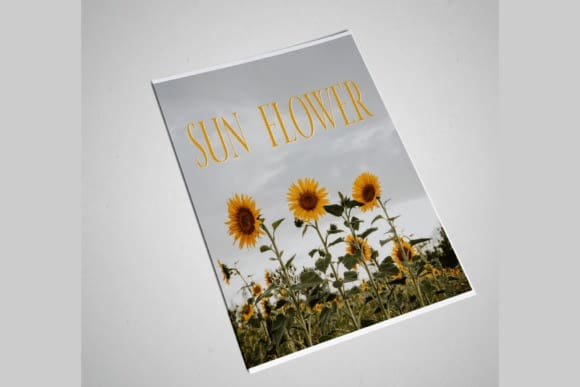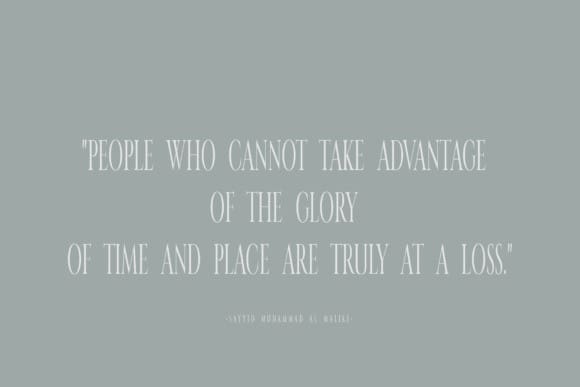
Jovanca Font
Jovanca Font is a fun and modern script font. Jovanca is perfect for traditional media and the web. Suitable for graphics, art, and craftsmen. Compatible with tools like Photoshop or Silhouette. The fun makes it great for creative projects, whether it’s an inspiring wall poster or communicating your brand.